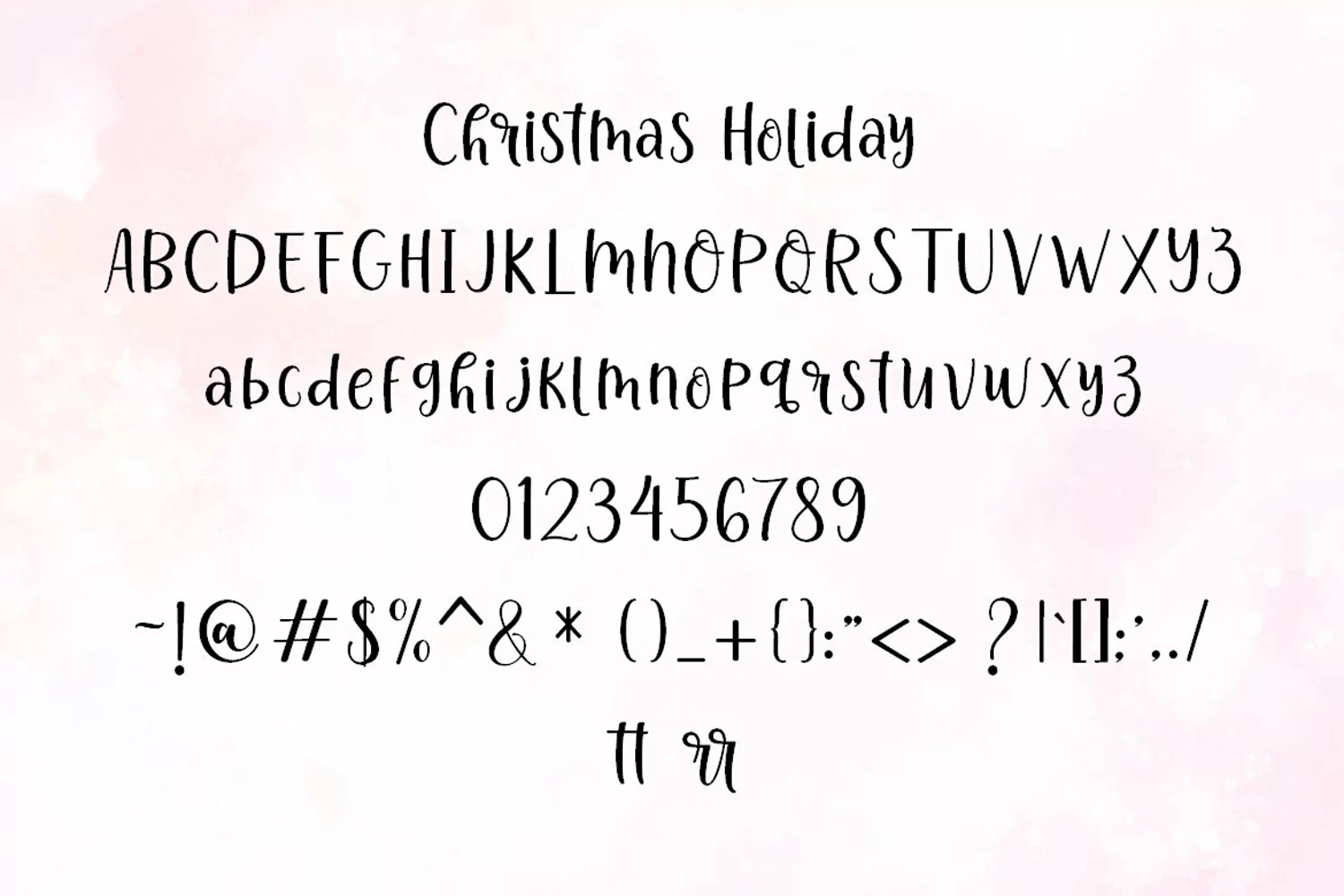
Fabulous Script
Font Christmas Holiday beautiful choice for so many printed projects - invitations, greeting cards, posters, quotes, business cards, T-shirts, branding and more.
Uppercase & lowercase